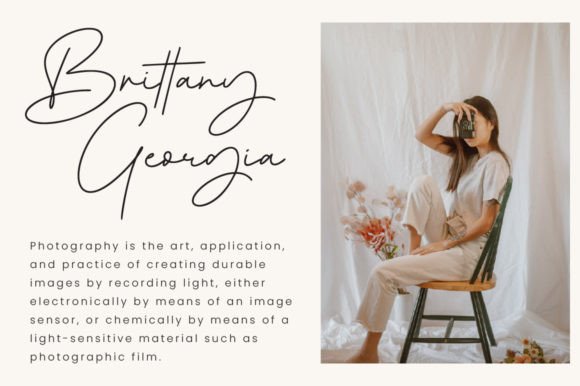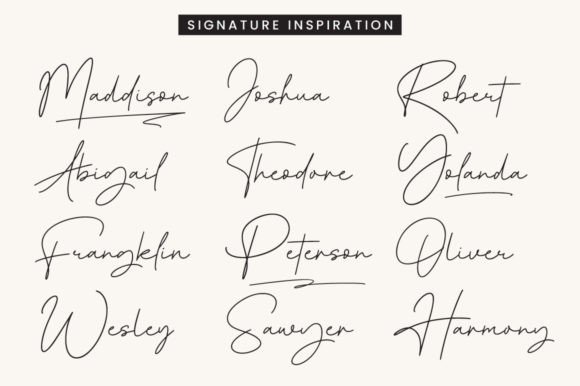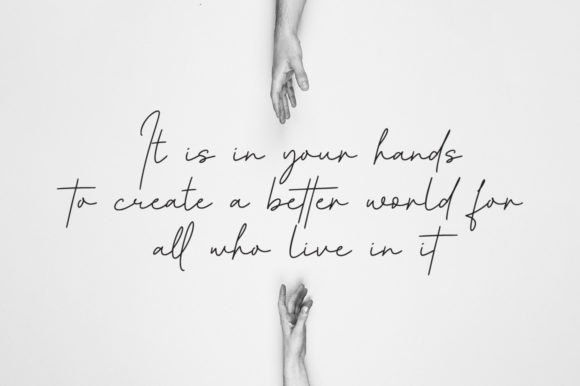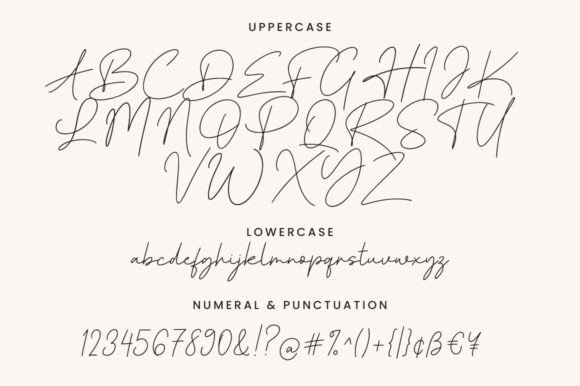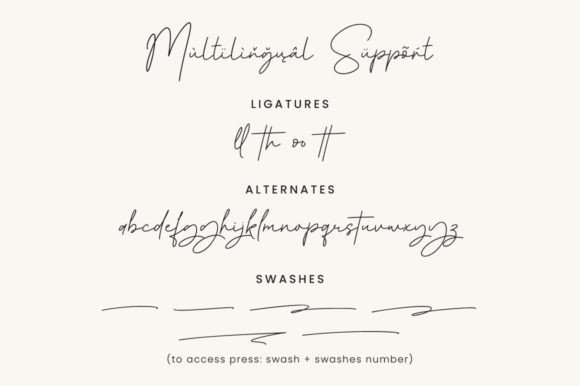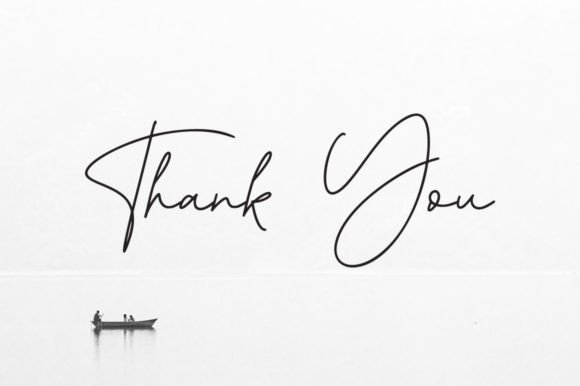
Introducing Bridger Signature: The Ultimate Luxurious Handwriting Font
In the world of typography, a new star has emerged: Bridger Signature. This stunning script font is making waves among designers, crafters, and brands looking for a touch of elegance and sophistication. In this article, we’ll dive into the features, benefits, and uses of Bridger Signature, the perfect addition to your font collection.
A Truly Fashionable and Luxurious Font
Bridger Signature is a handwriting font script that exudes luxury and style. Its natural, flowing script is perfect for creating a lasting impression. Whether you’re working on branding, social media, or product design, this font is sure to elevate your project. The attention to detail and care that went into crafting Bridger Signature is evident in its smooth, cursive lines and elegant swashes.
What Makes Bridger Signature Special?
- PUA Encoded: Bridger Signature is PUA (Private Use Area) encoded, which means you can access all glyphs and swashes effortlessly. This feature allows you to customize your text and make it truly unique.
- Natural Handwritten Script: The font was created to mimic a natural handwritten script, giving it a personal and authentic feel.
- Versatile: Bridger Signature is perfect for a wide range of applications, including branding, photography, social media, product design, wedding invitations, titles of articles or books, and more.
Use Cases for Bridger Signature
This versatile font can be used in various contexts, including:
- Branding: Create a luxurious and memorable brand identity with Bridger Signature. Use it for logos, business cards, or letterheads to make a lasting impression.
- Wedding Invitations: Add a touch of elegance to your wedding invitations, save-the-date cards, or thank-you notes with Bridger Signature.
- Social Media: Elevate your social media presence with eye-catching graphics, quotes, or captions featuring Bridger Signature.
- Product Design: Use Bridger Signature to create beautiful product labels, packaging, or advertisements that stand out from the crowd.
- Photography: Add a personal touch to your photography with captions or quotes featuring Bridger Signature.
Why Choose Bridger Signature?
With so many fonts available, why choose Bridger Signature? Here are a few reasons:
- Unique and Exclusive: Bridger Signature is a one-of-a-kind font that will set you apart from others.
- High-Quality: The font is crafted with attention to detail, ensuring a high-quality output.
- Easy to Use: Bridger Signature is PUA encoded, making it easy to access and use all glyphs and swashes.
Bridger Signature is a game-changer for designers, crafters, and brands looking for a luxurious and elegant handwriting font. Its natural, flowing script and PUA encoding make it a versatile and easy-to-use addition to any project. Whether you’re working on branding, social media, or product design, Bridger Signature is the perfect choice. Get ready to elevate your designs and make a lasting impression with this stunning script font.